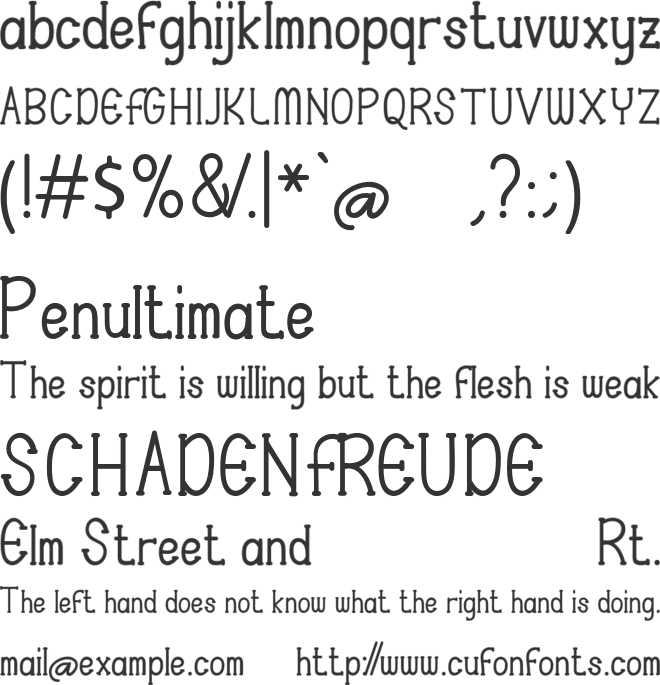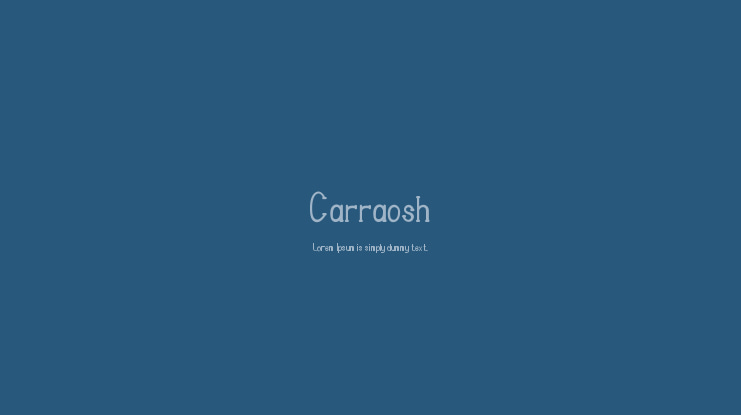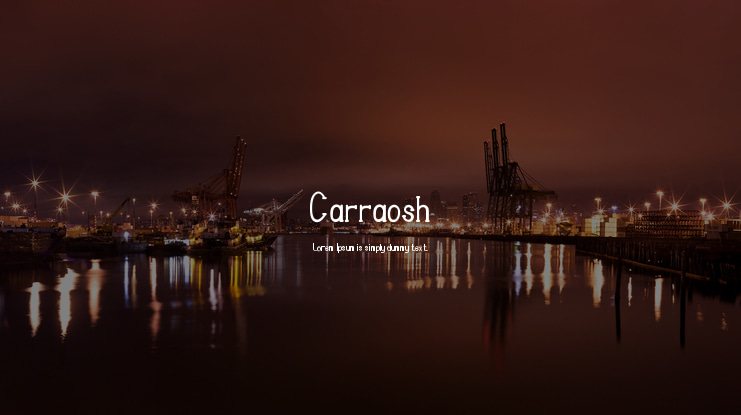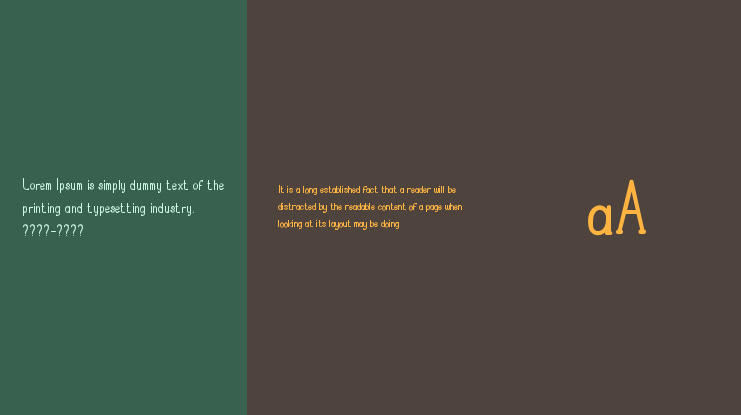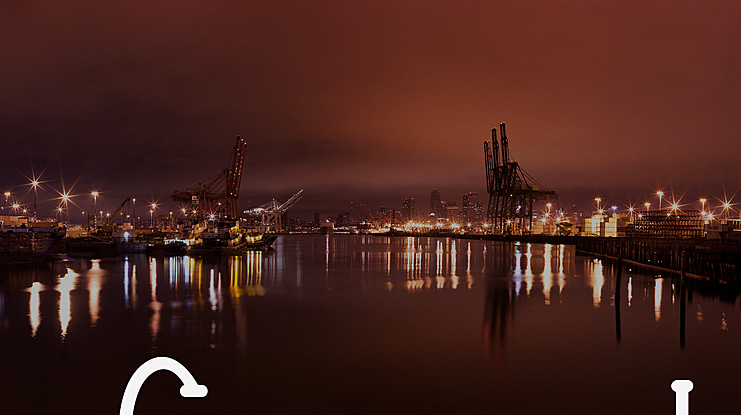
Carraosh Font
Carraosh is a Monoline Display, a typeface. It contains including alternative characters such as: Titling, Terminal Forms, Stylistic Alternates, Multilingual, and Variant. Carraosh very suitable to use on many of your design projects such as Signage , Book Covers, Invitation, Packaging, Logotype and more.